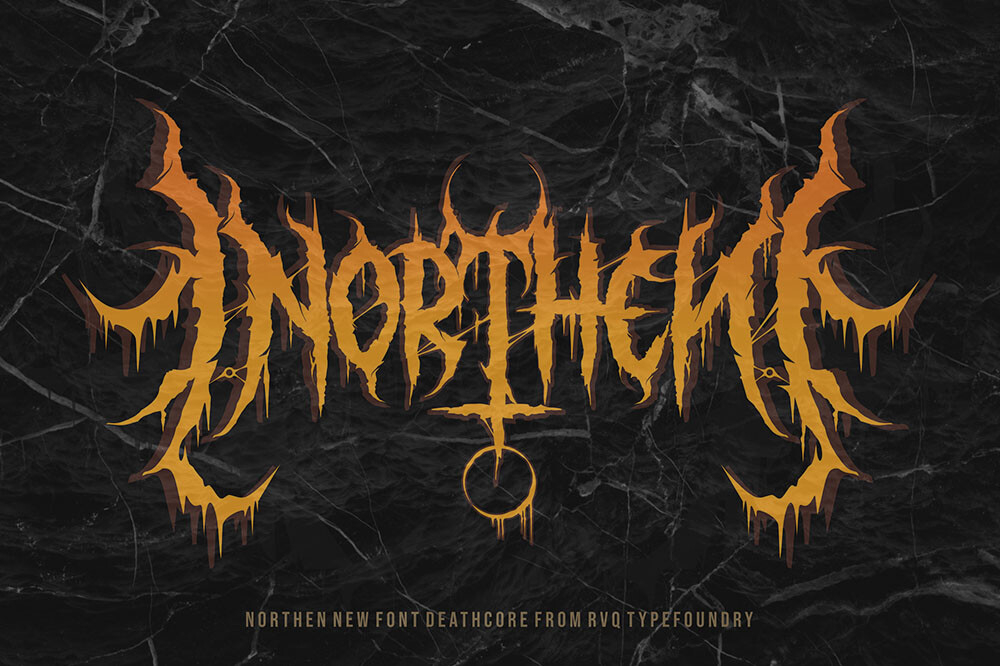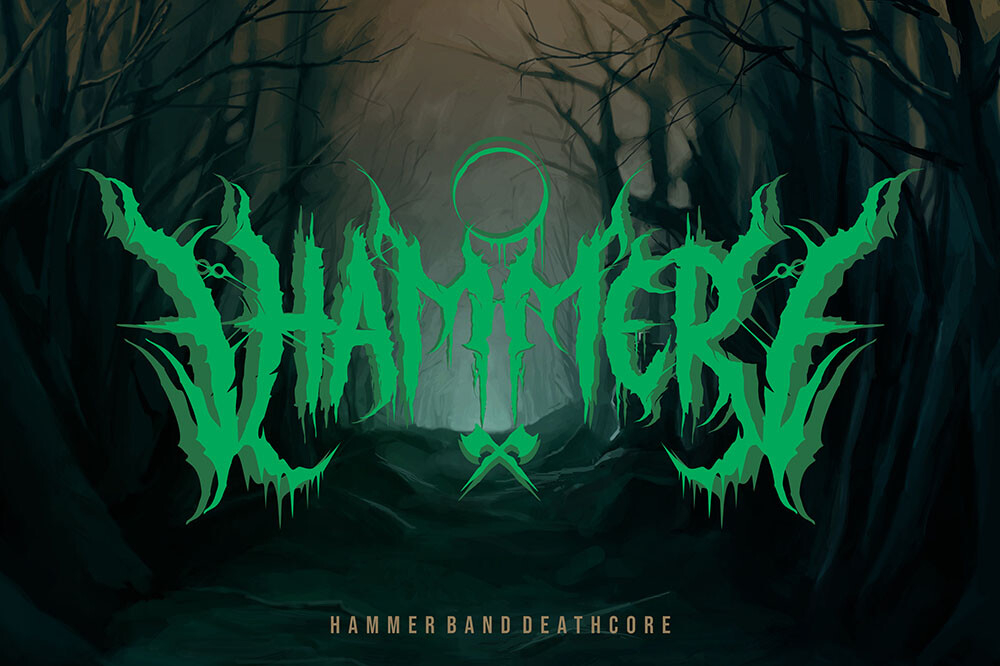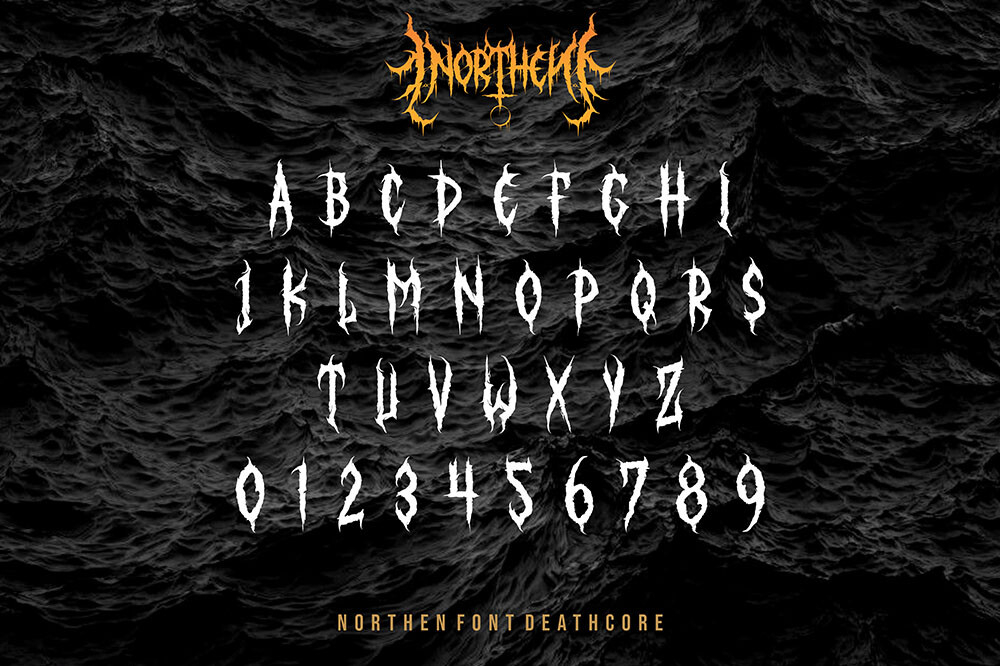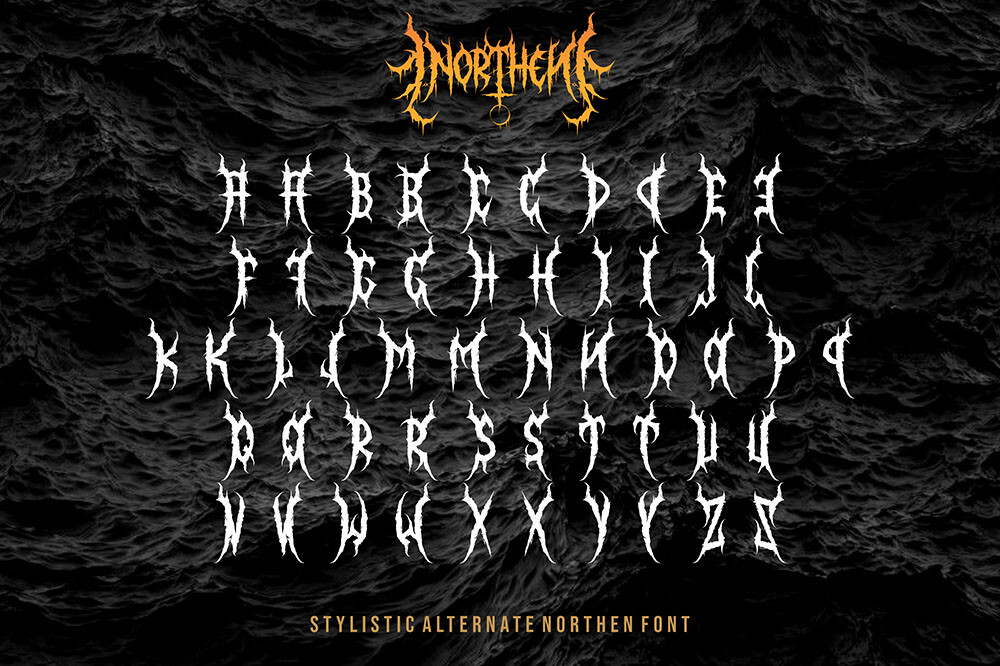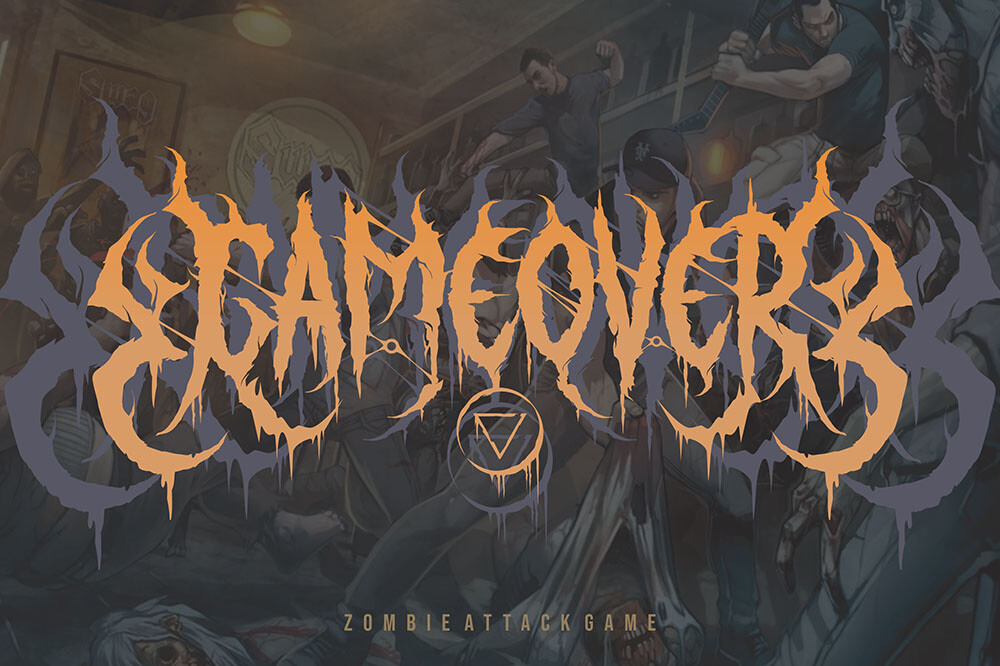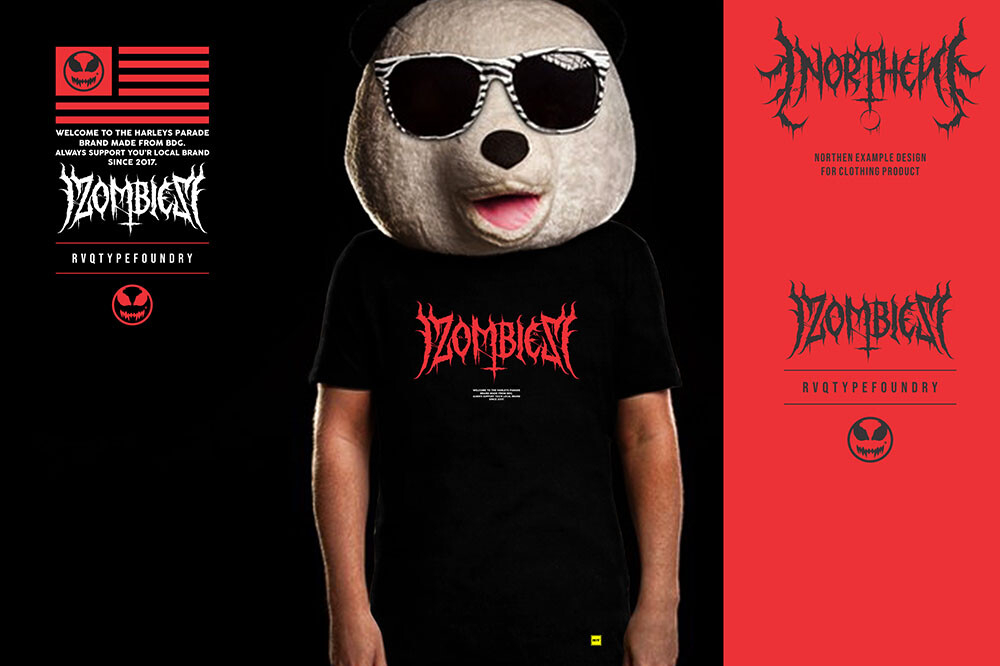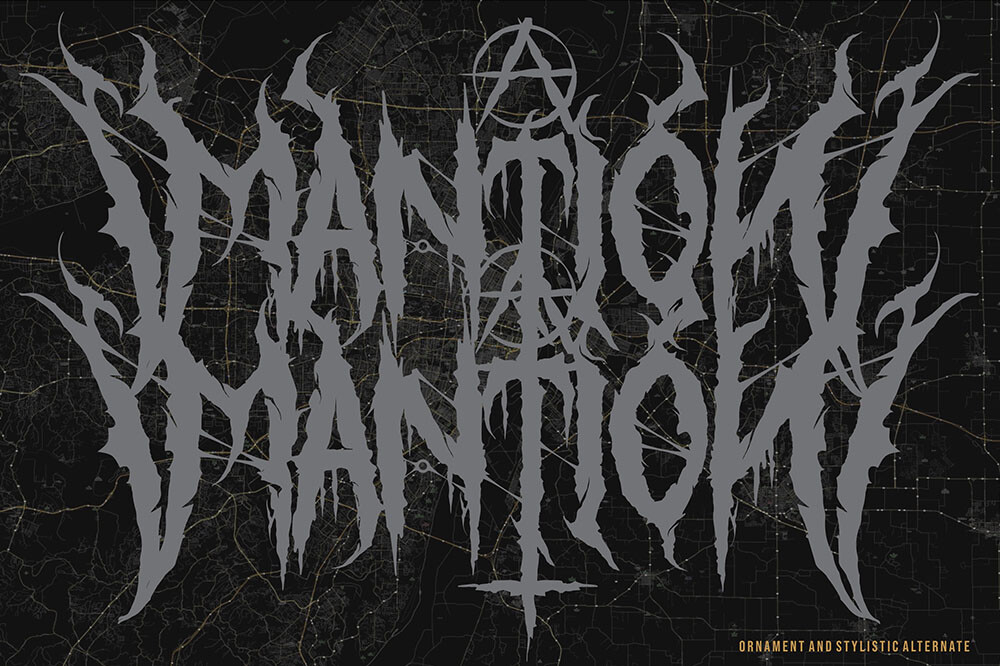
Northen Font
About Northen Font
Northen is the new font deathcore and black metal and was created as a dual-purpose font. To create a beautiful combination, just mix your words with the alternative glyphs and Ornament. Perfect for: Band, Music, clothing, Branding, Logos, Greeting Cards, Stationery Design, Invitations, T-shirts, Apparel, Packaging designs, Posters, Typographic designs, and so much more.